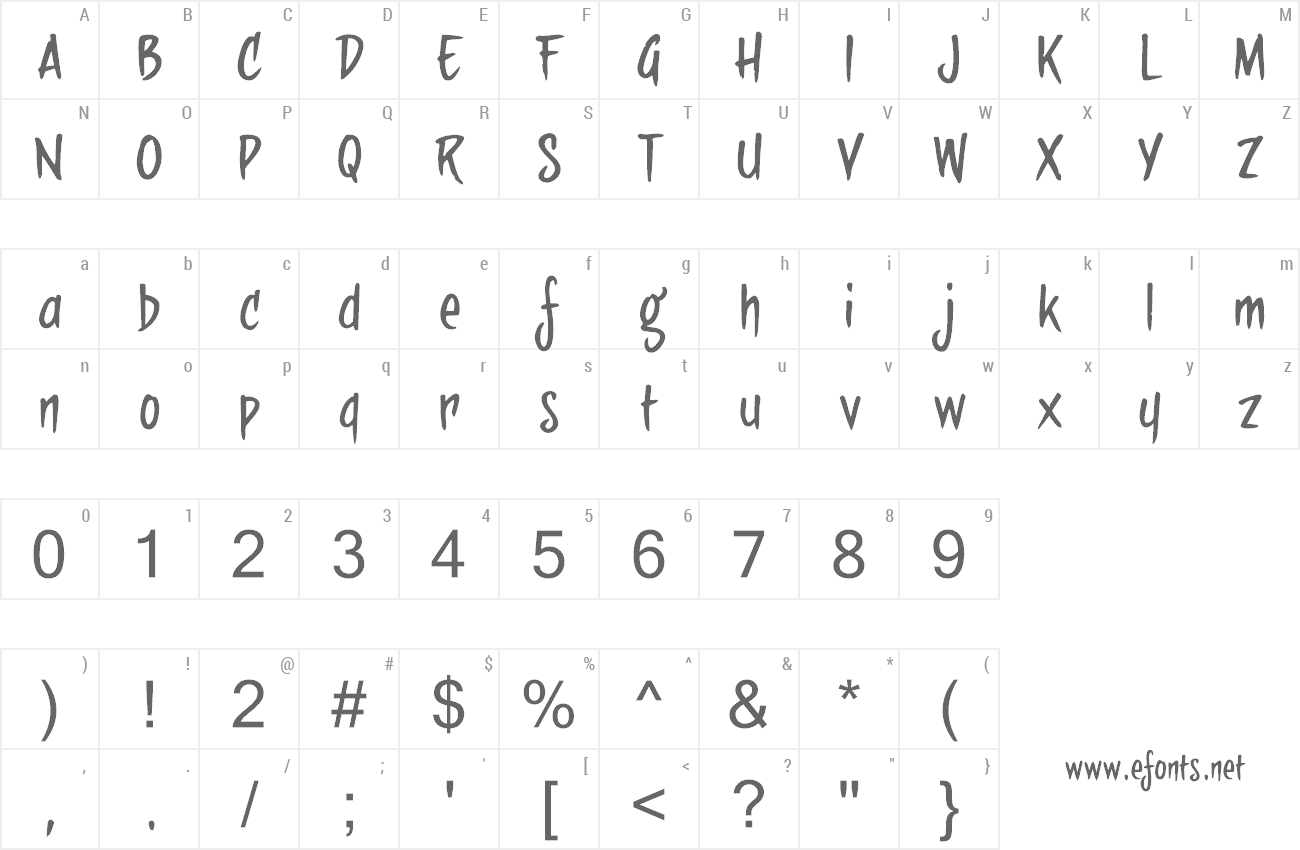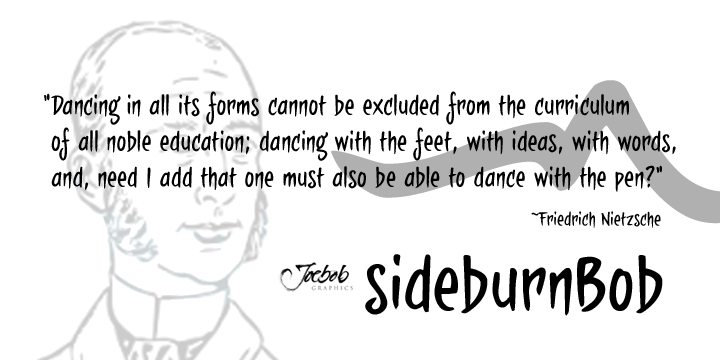
Preview and download Sideburn Bob Font. Created by JOEBOB graphics in Fancy Comic styles with Demo license.
A new handwritten font you might be able to use in comics, illustrations or even a christmas card. Hope you like it. This is an incomplete trial version. The complete and embeddable version of the font is available on my website: www.joebob.nl |